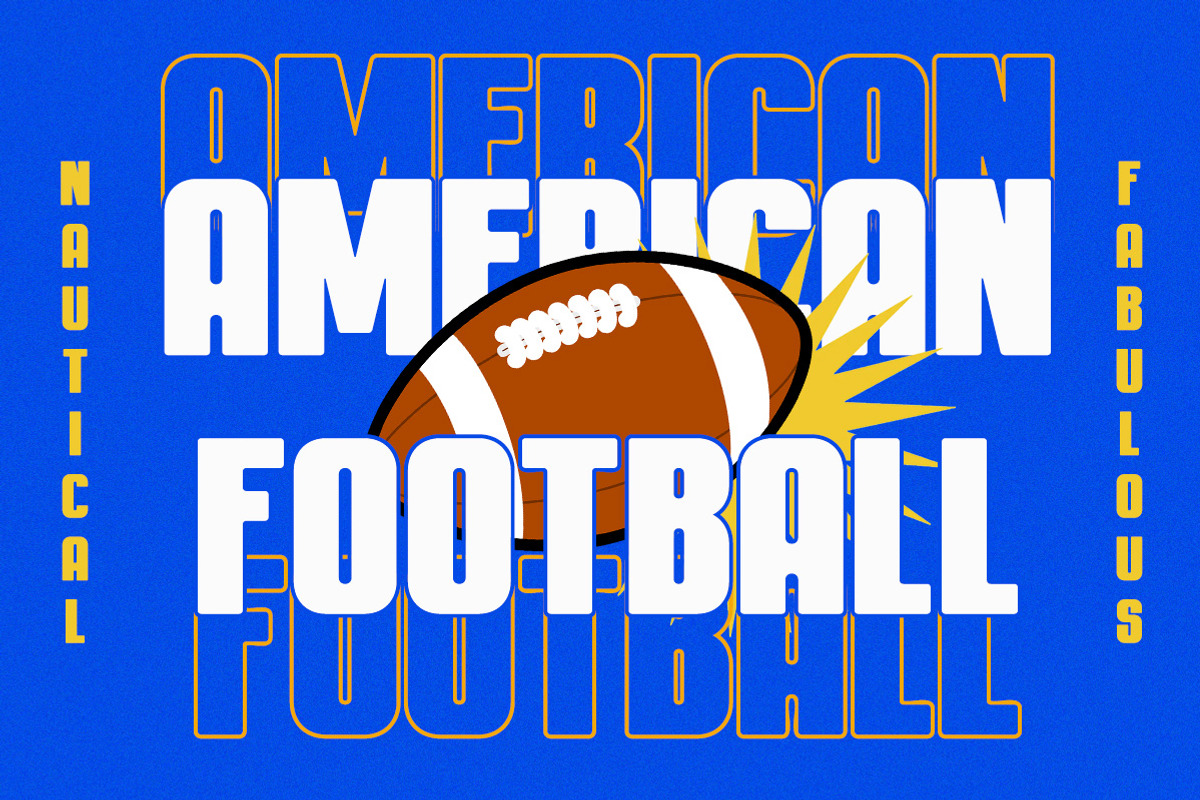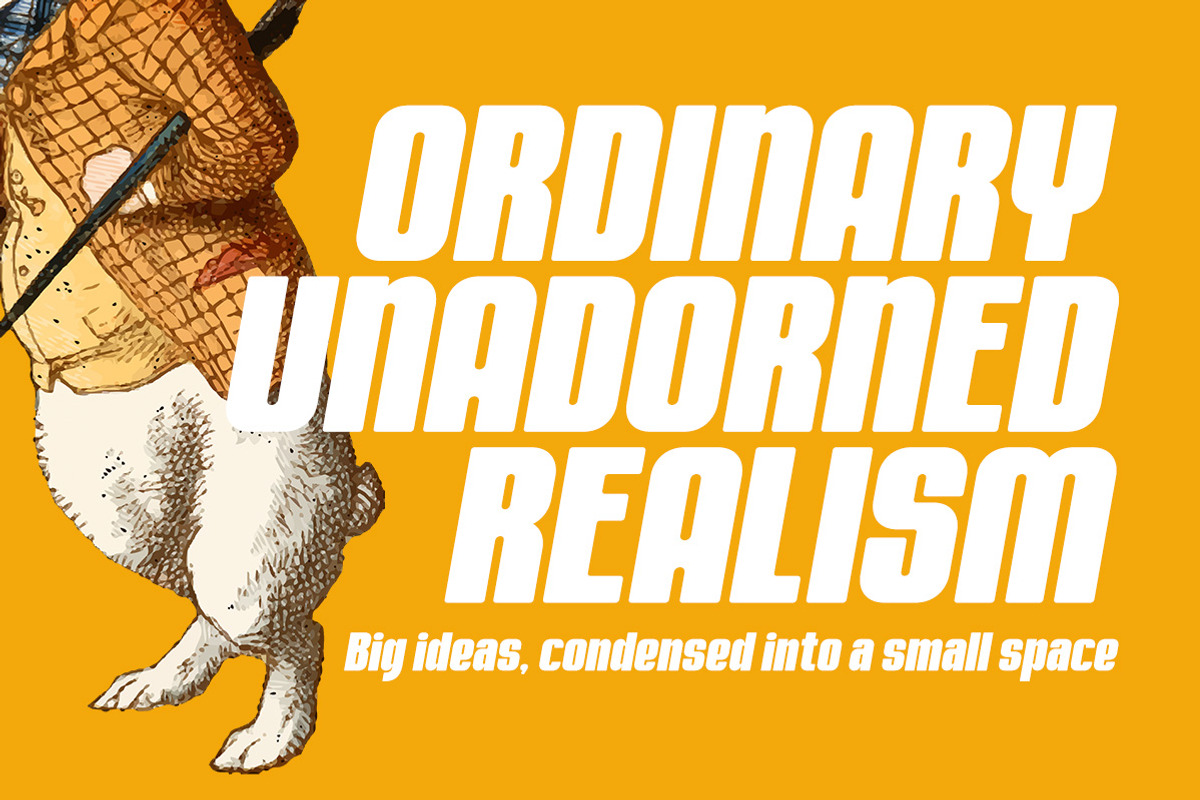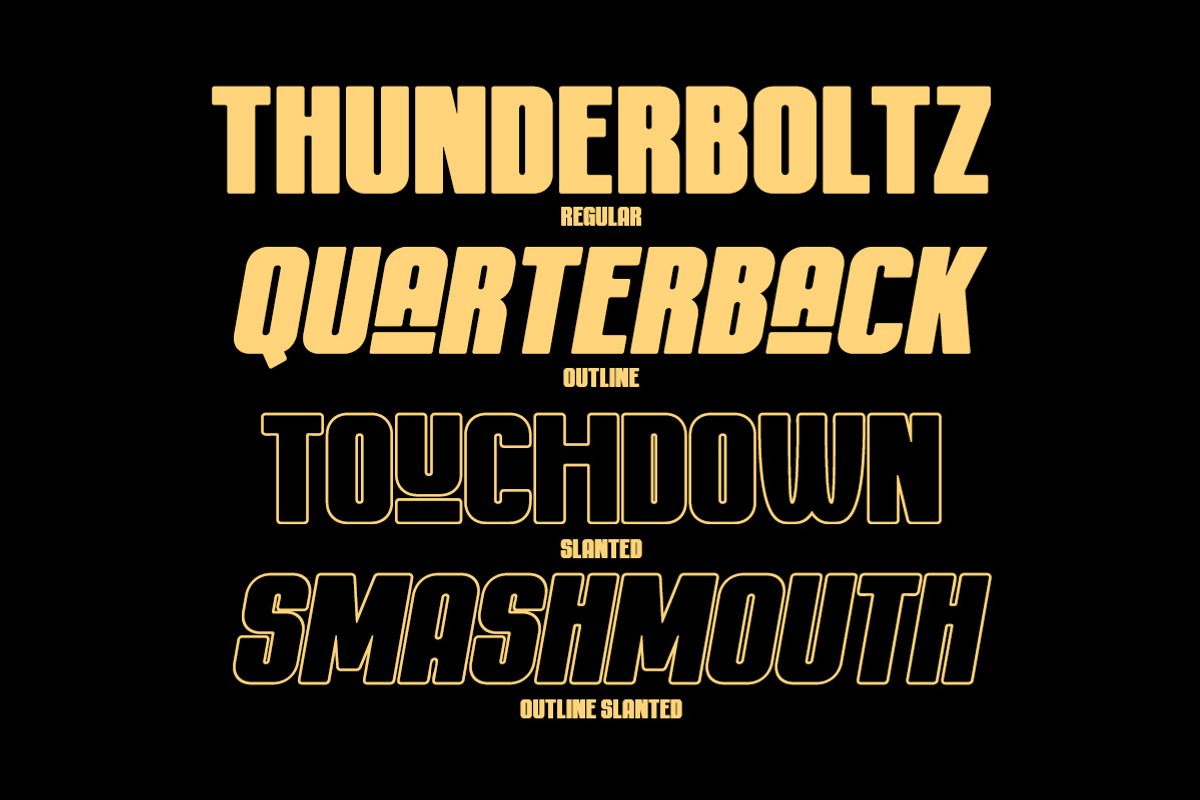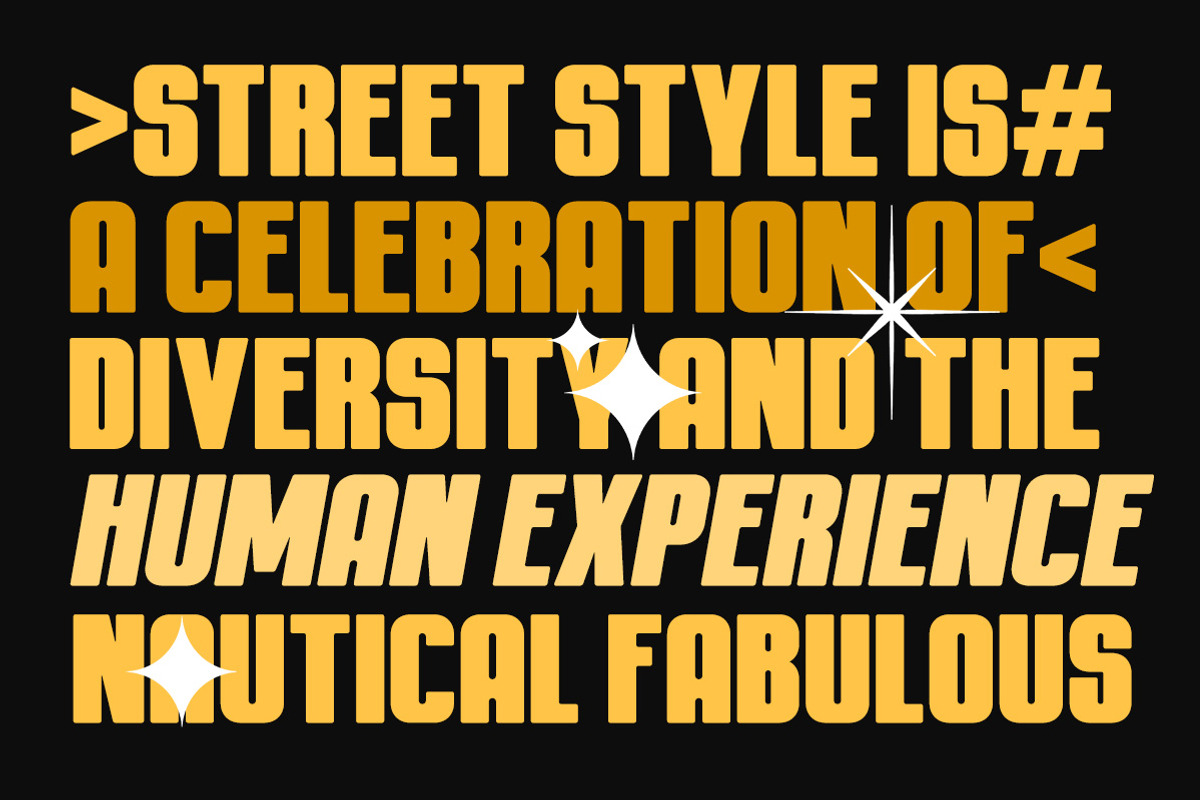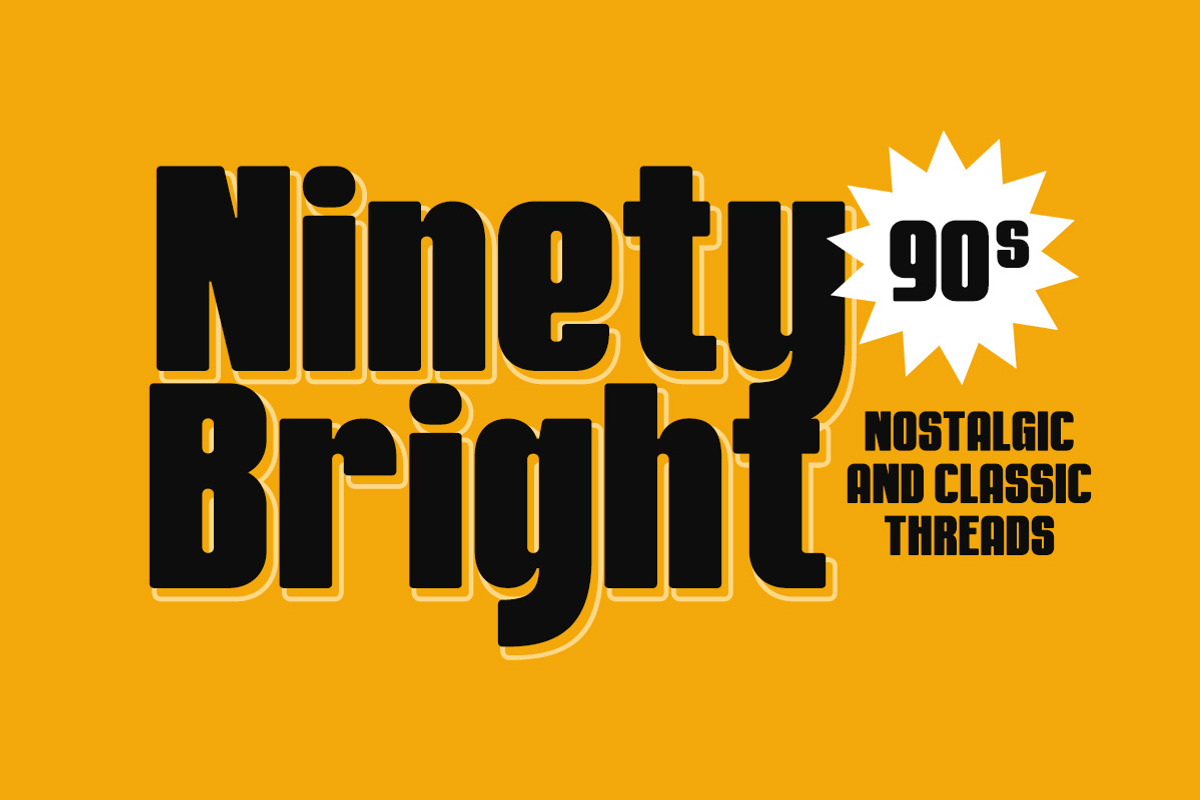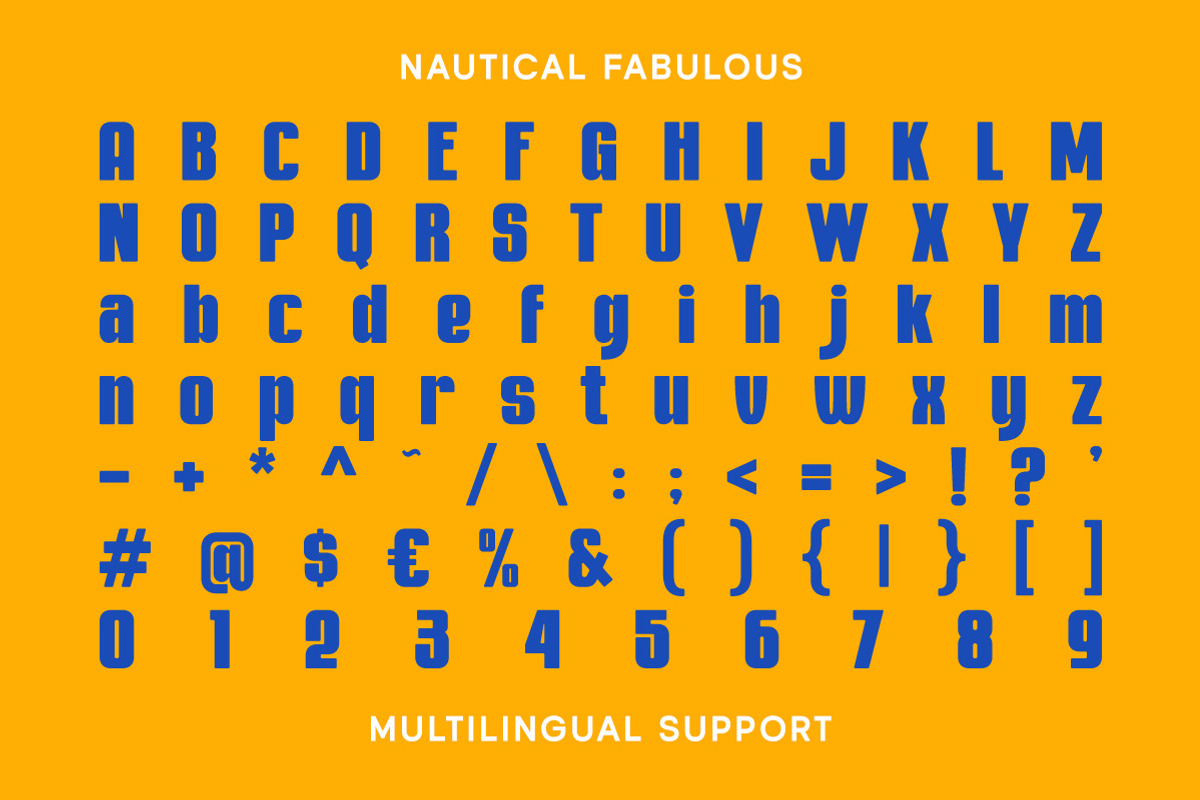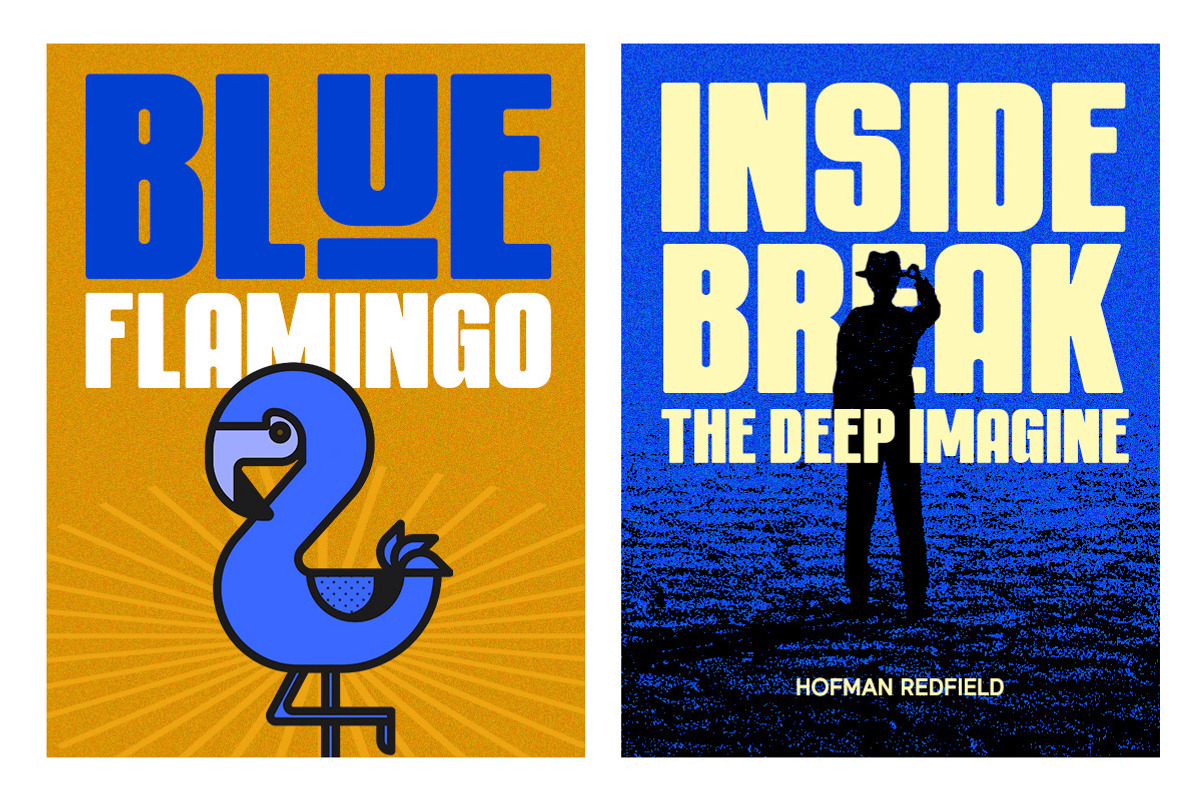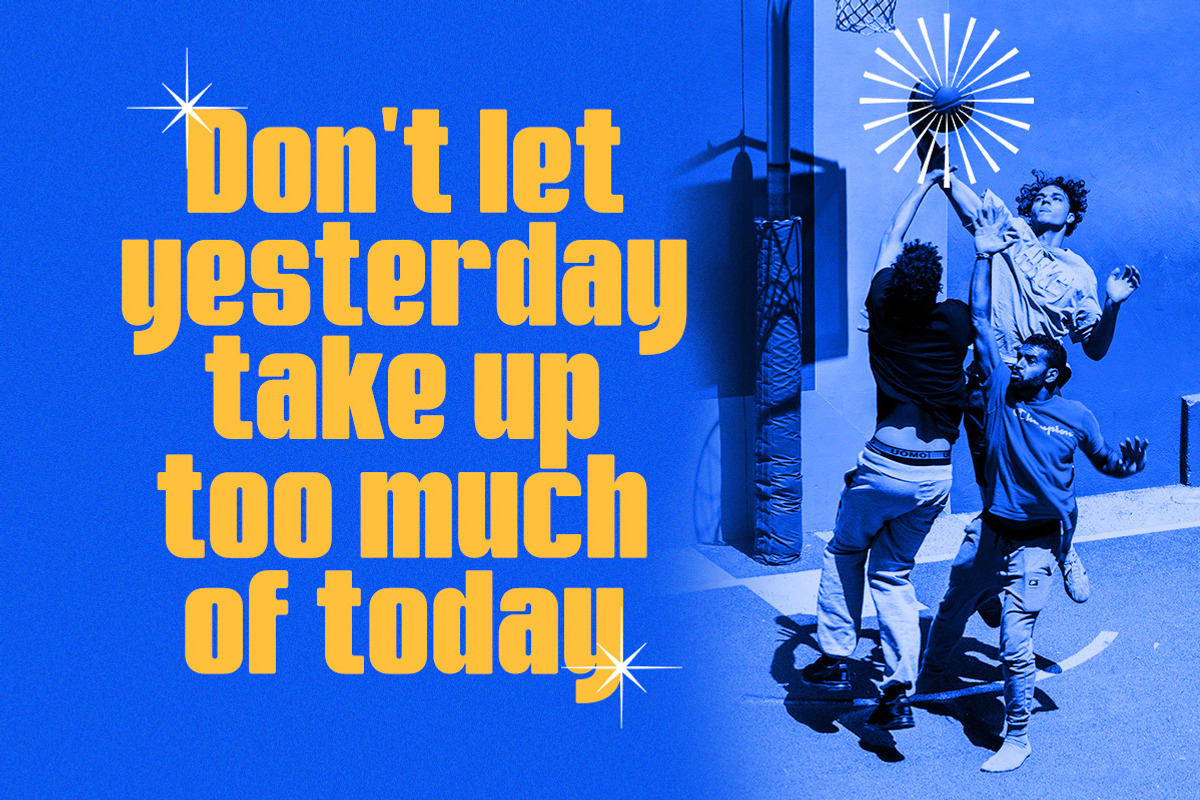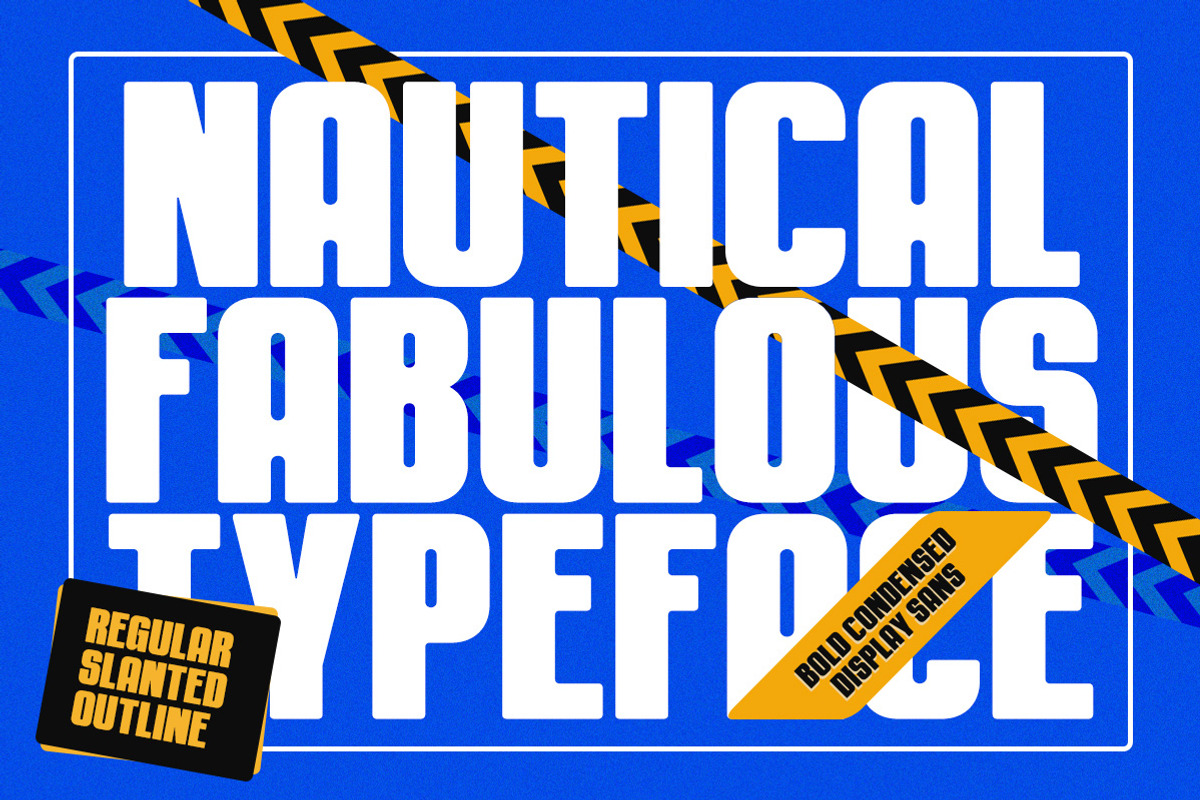
Nautical Fabulous Condensed Display
The Nautical Fabulous font features a perfect blend of boldness and condensed letterforms. Its clean lines and sharp edges give it a catchy look that is ideal for modern branding, striking headlines, and impactful displays. With its commanding presence, this font effortlessly stands out in any design composition. Features :